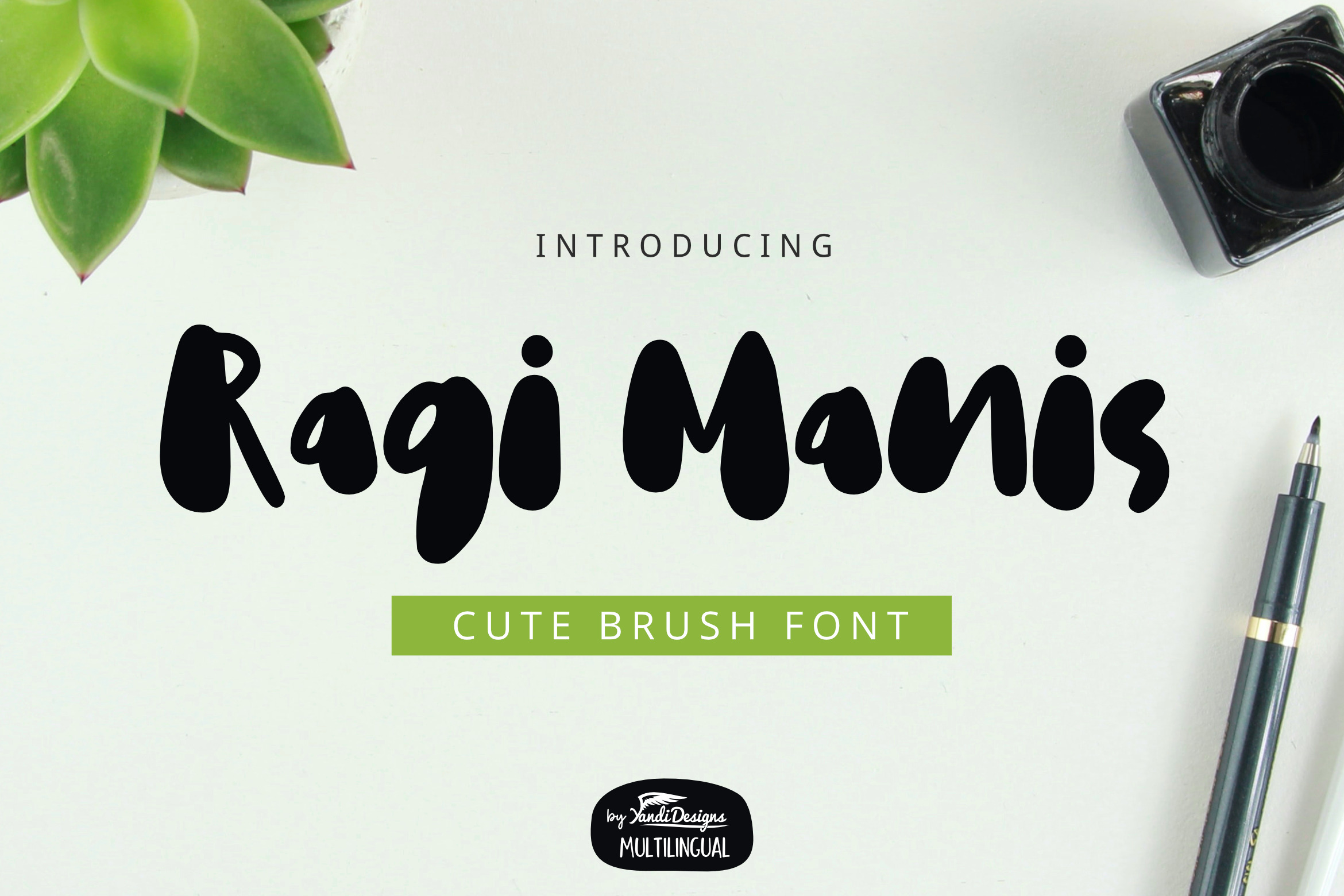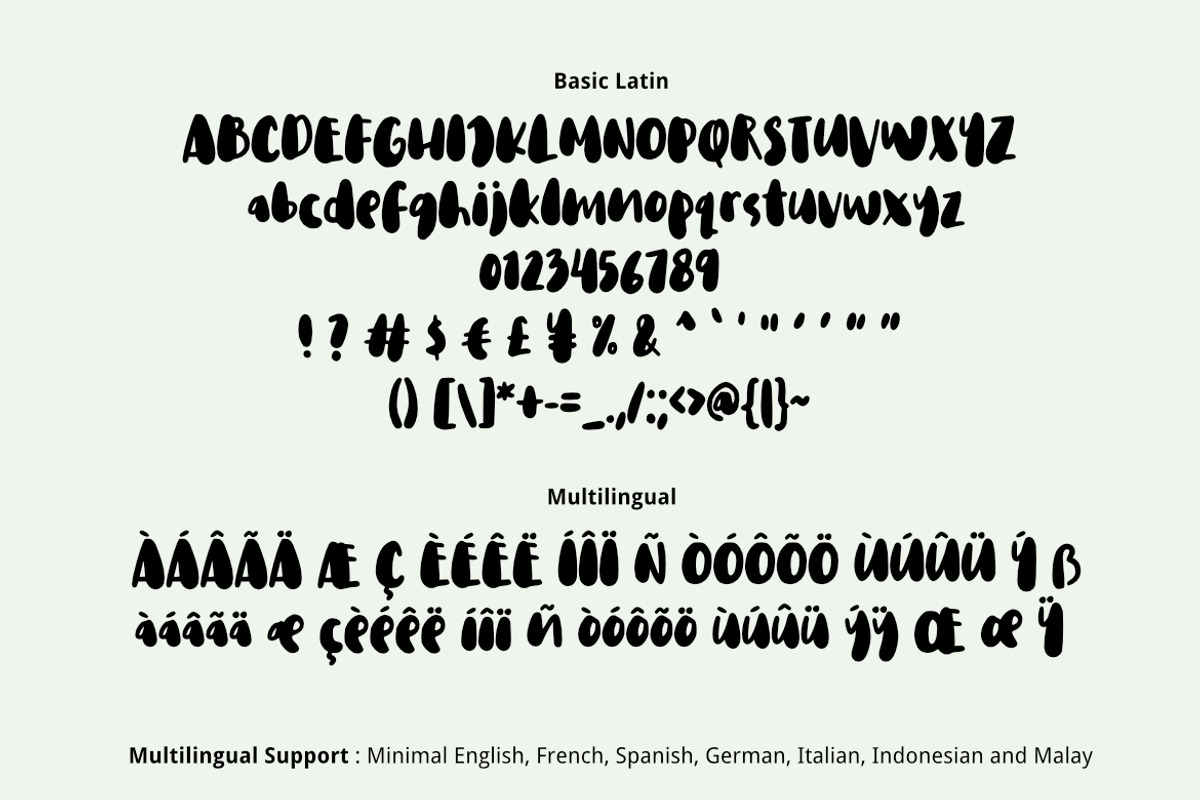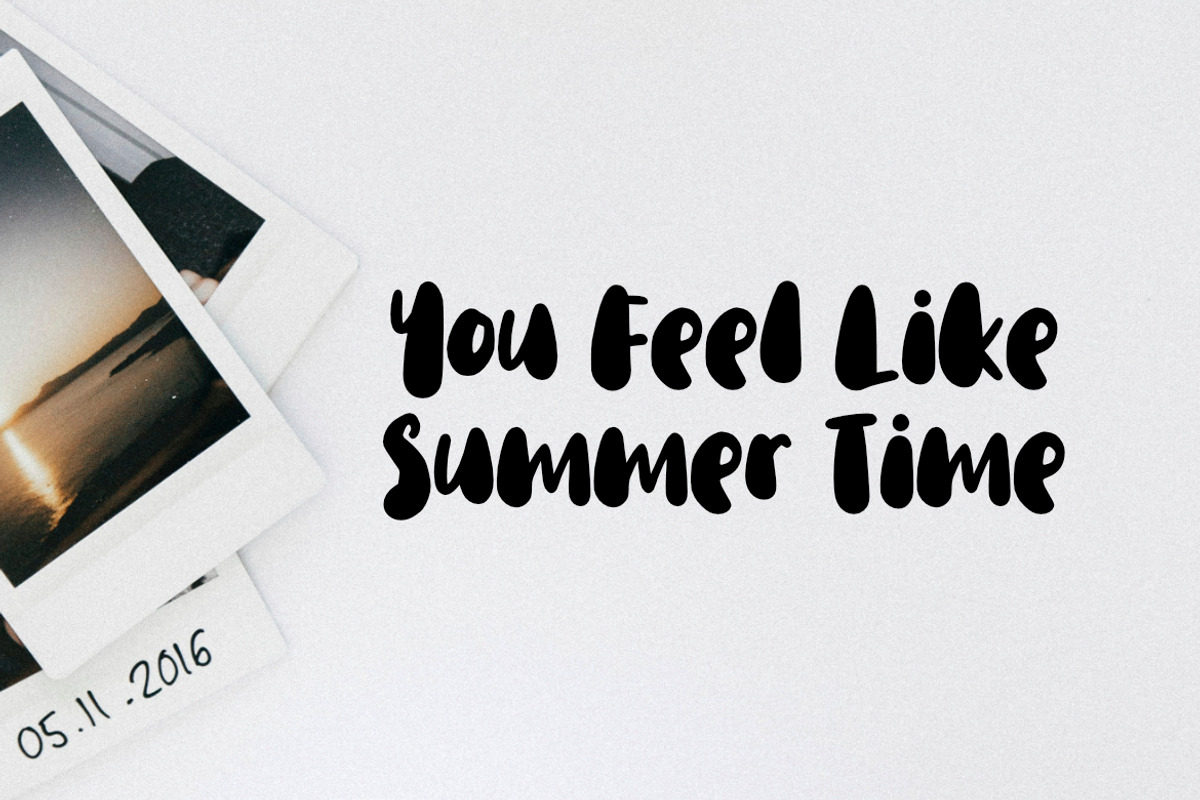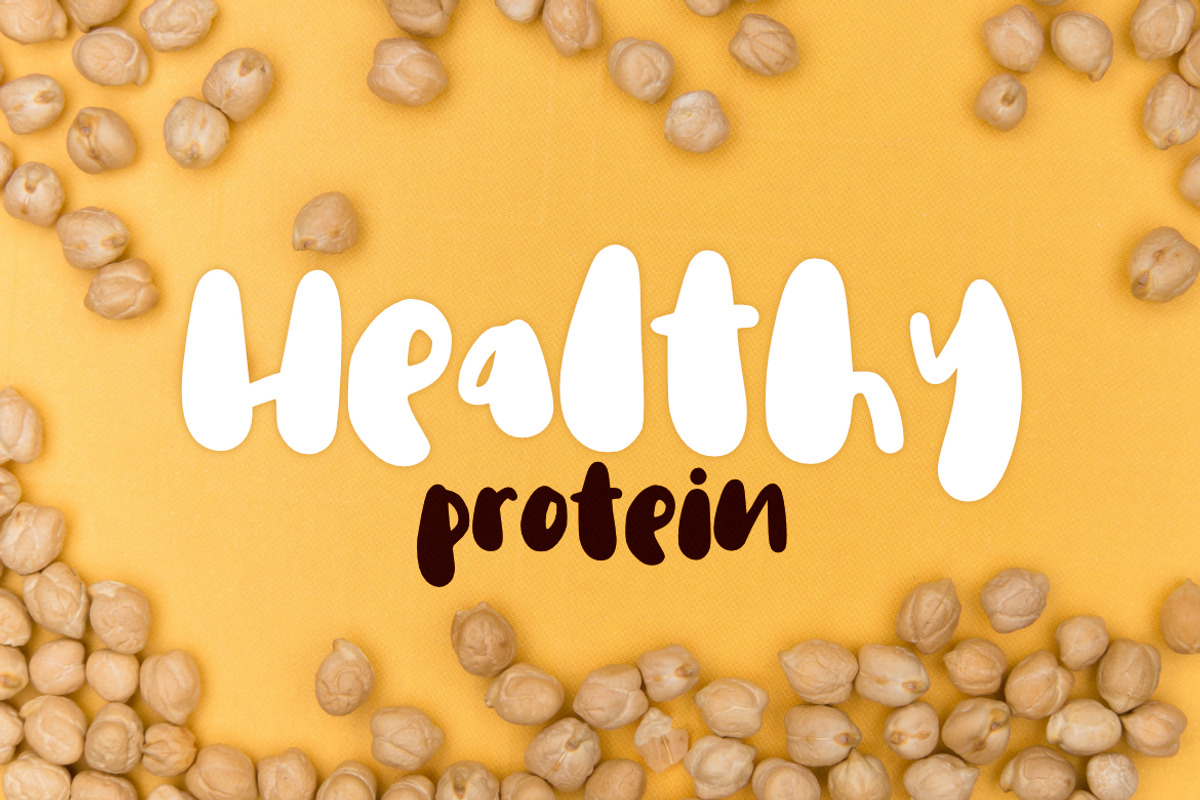
Ragi Manis Font
Ragi Manis Font is lovely cute multipurpose handmade brush font, suitable for many project children book, quotes, logo , heading , title etc.